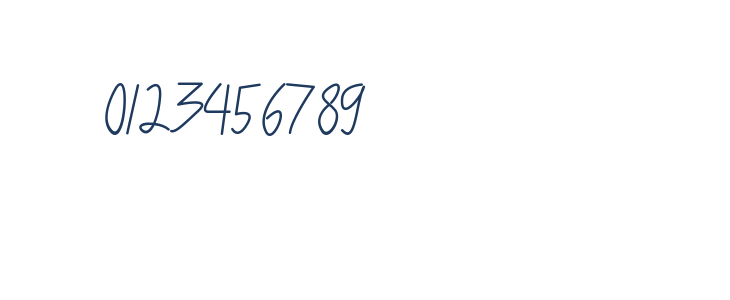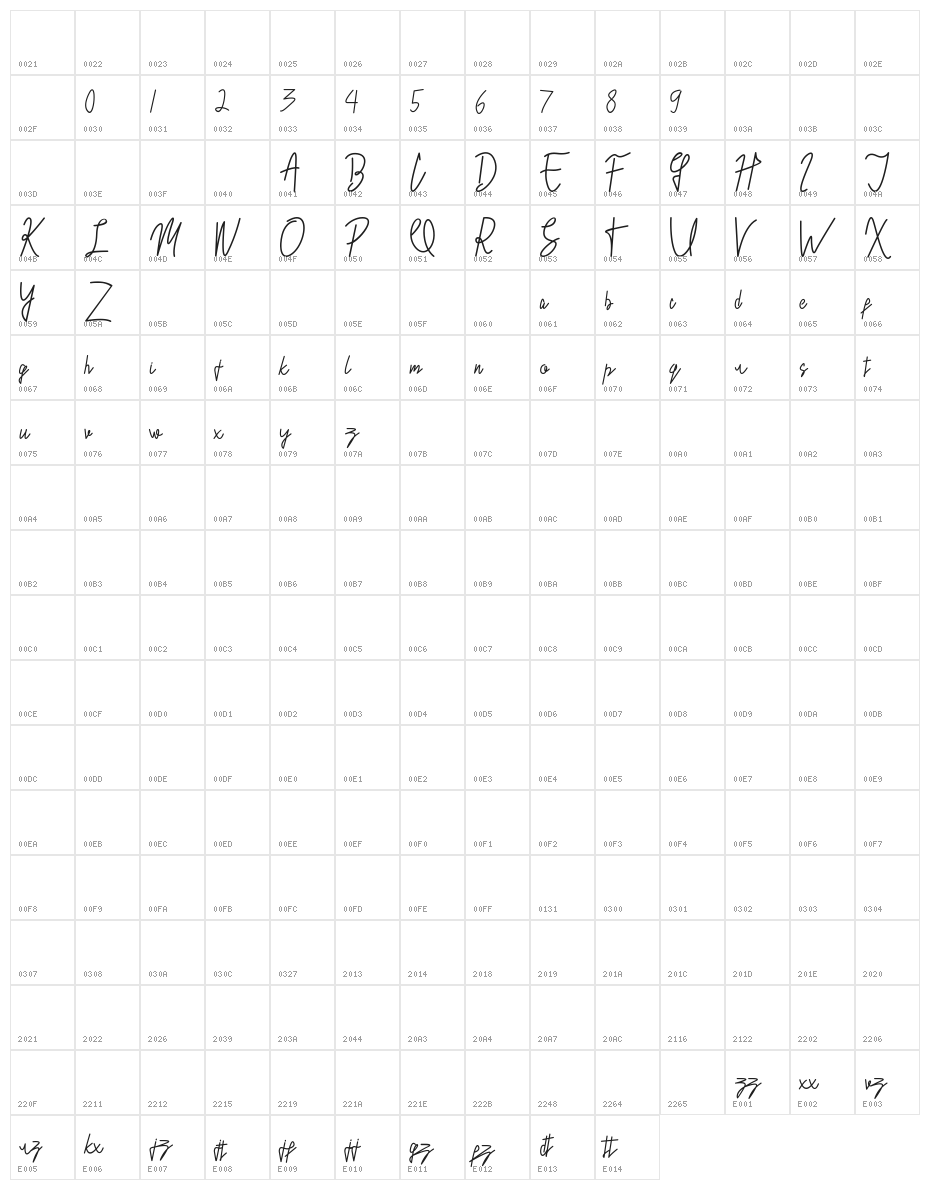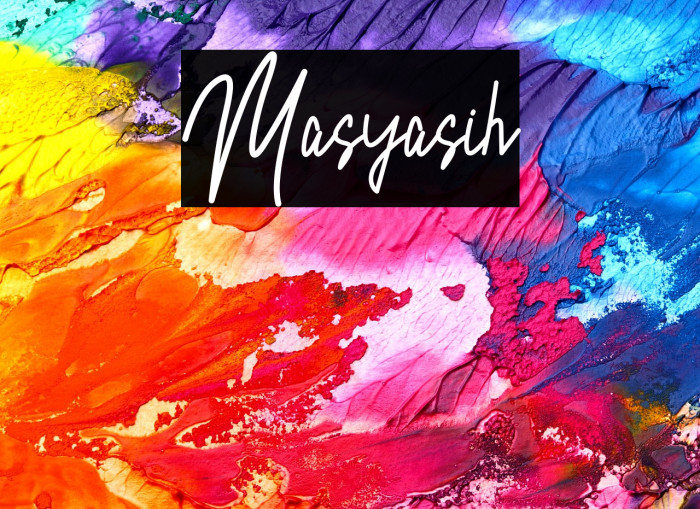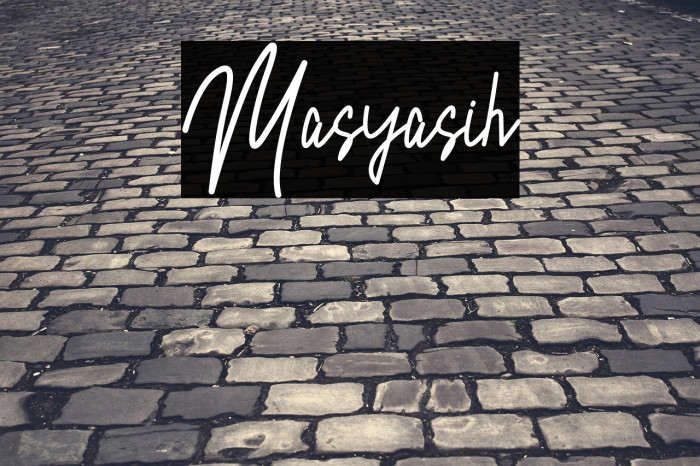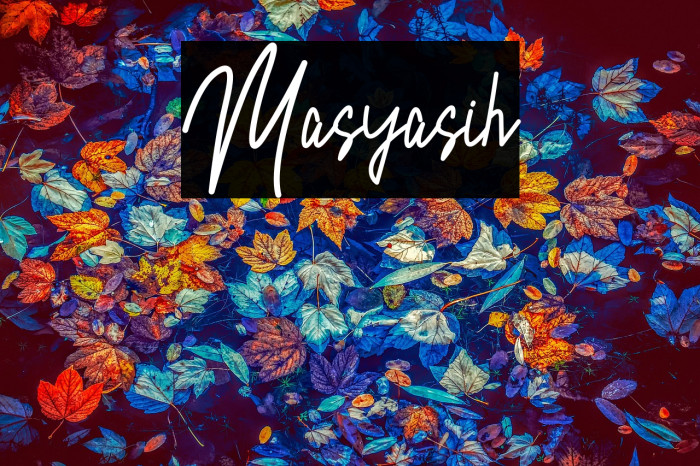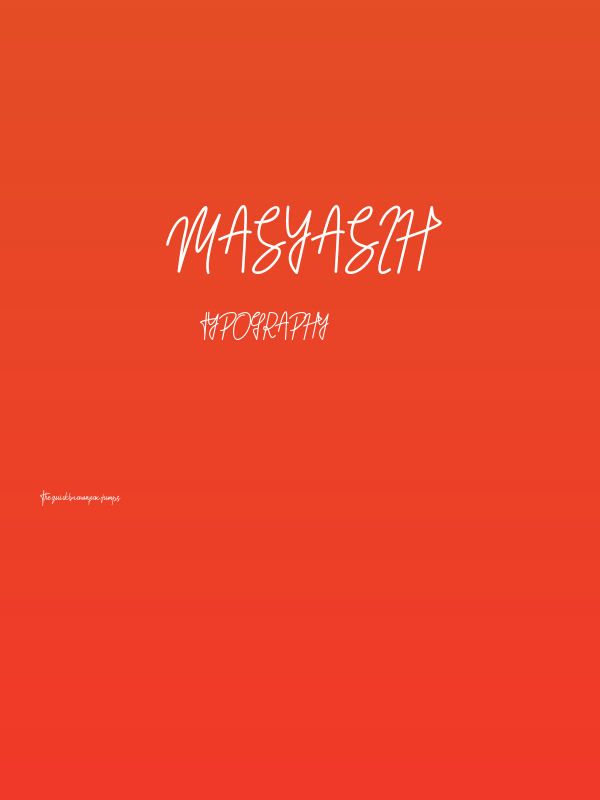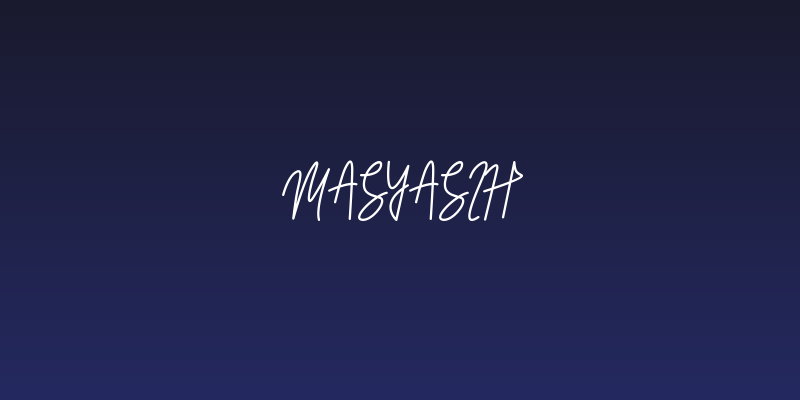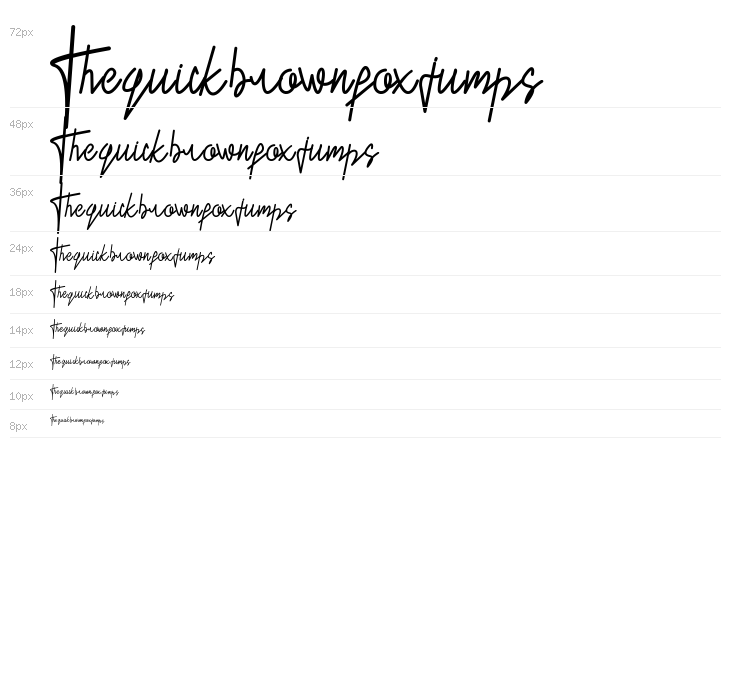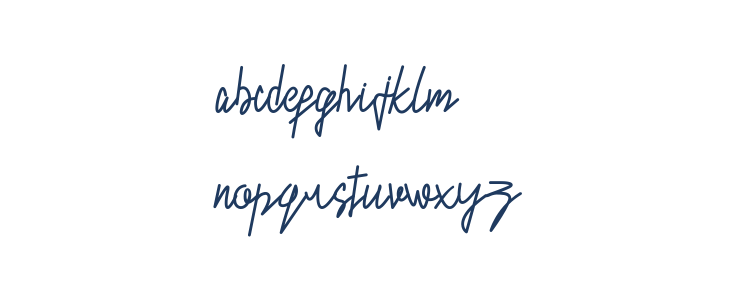
Masyasih Font
Masyasih Description
This font features a playful and dynamic handwritten style, characterized by its fluid and irregular strokes. The letters are connected in a cursive manner, giving it a casual and informal appearance. The uppercase letters are tall and slightly slanted, while the lowercase letters maintain a consistent flow, enhancing readability. The numbers and special characters follow the same whimsical style, making the font suitable for creative projects. Its unique charm lies in the organic and spontaneous feel, reminiscent of personal handwriting.
| Proposed Projects | Ideal for greeting cards, personal notes, invitations, and creative branding projects. |